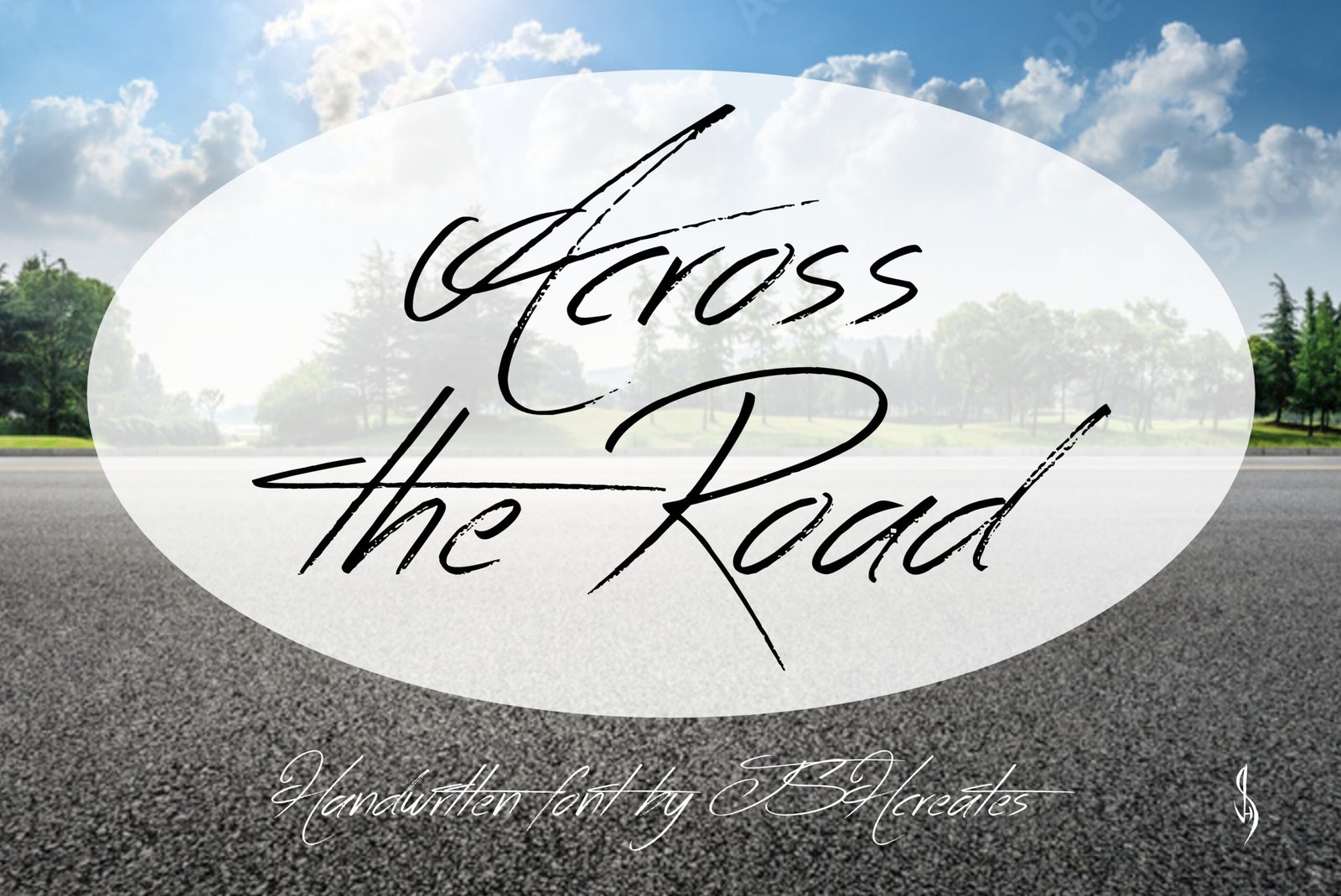
Across the Road Font
Cool handwritten script font. “Across the Road”. Perfect for advertising and display purposes, including banners, book covers, shirts, posters, logos and much more!
Font includes all upper and loweracse letters, numbers, characters, punctuation and some euro characters.